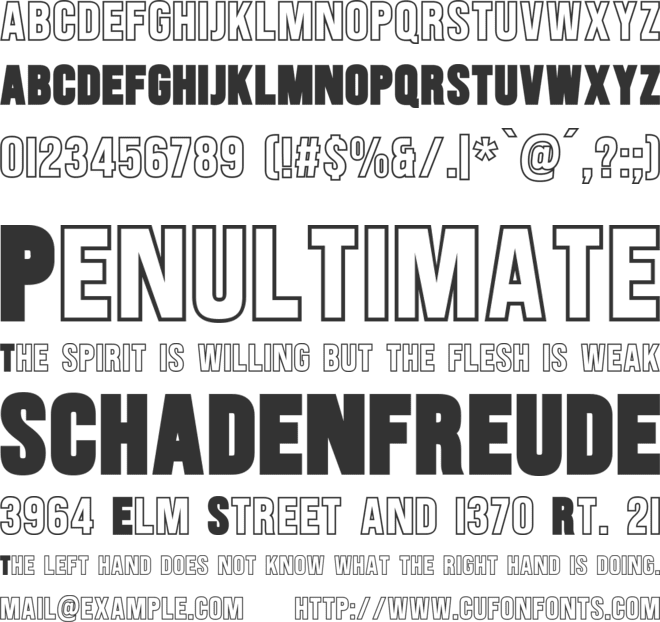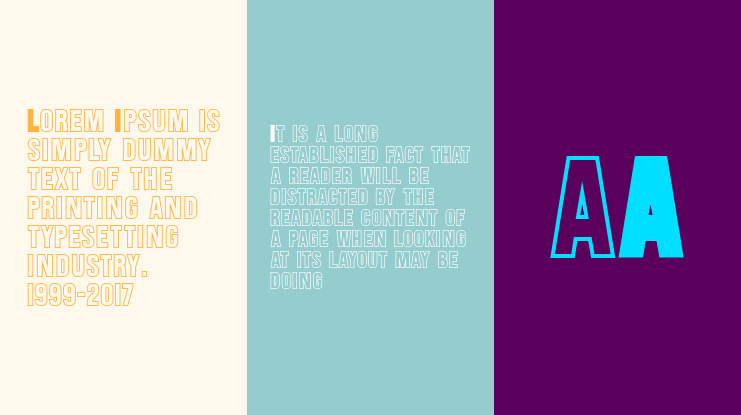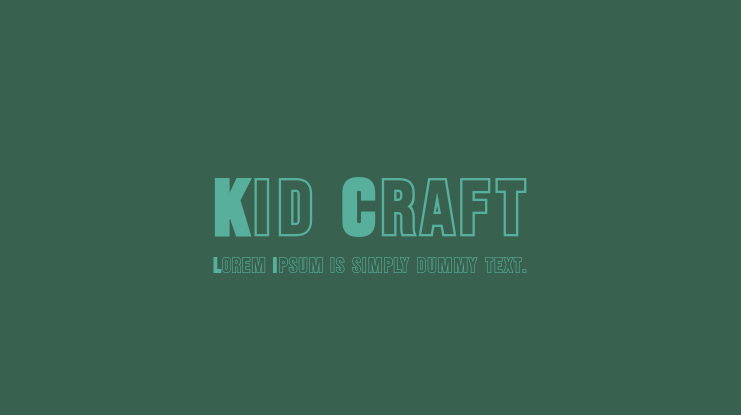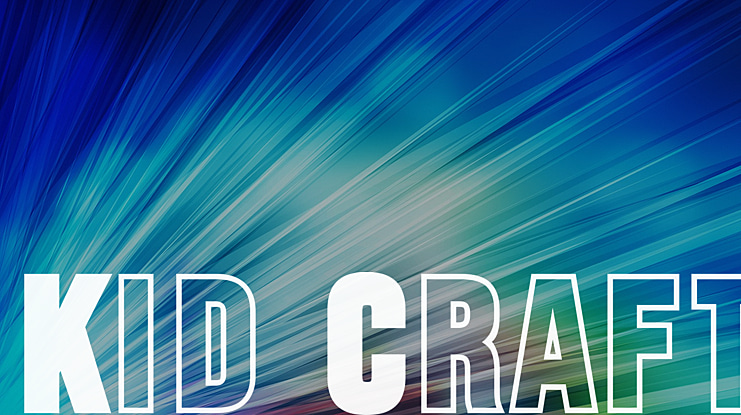
Kid Craft Font Family
Kid Craft is a fun and casual display font with a cheerful vibe. With its clean, beautiful lines, this typeface will look outstanding in both formal and non-formal designs.